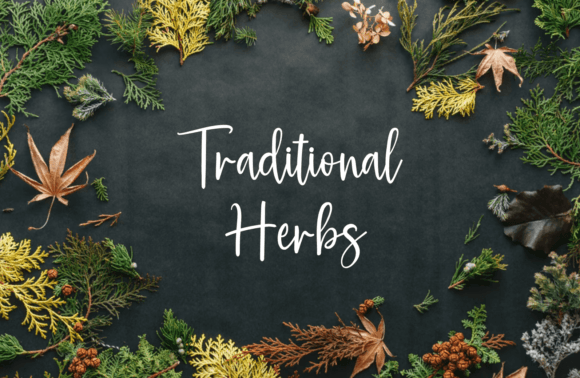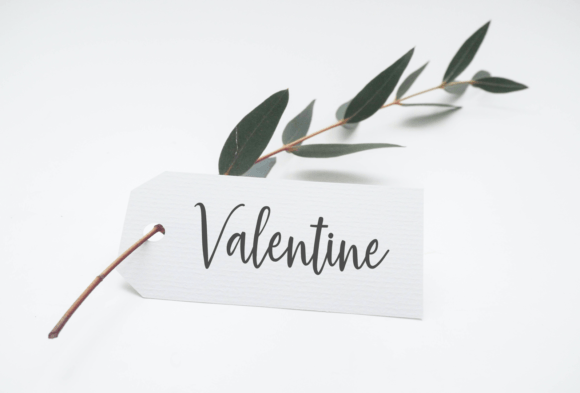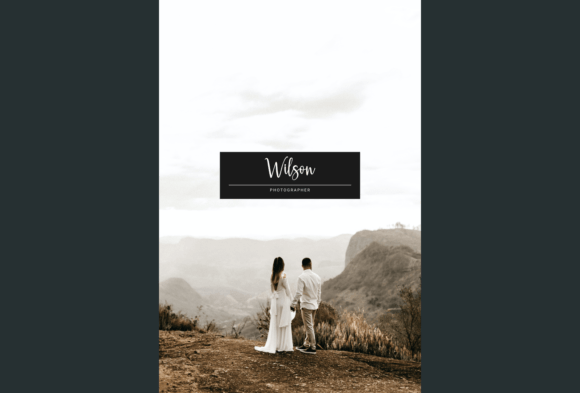
Handletters Font
About Handletters Font
Handletters is a timeless and straightforward handwritten script font, crafted with a touch of randomness and freestyle elegance. Its classic charm makes it a versatile choice, fitting seamlessly into various design contexts such as logotypes, headlines, corporate identity, brand identity, apparel industry, posters, music covers, movie titles, games, magazines, books, comics, cartoons, YouTube thumbnails, Instagram posts, websites, and any other creative design projects you have in mind.
What sets Handletters apart is its ability to convey a sense of simplicity while maintaining a stylish and classic aesthetic. The font’s freestyle nature adds a touch of authenticity, making it suitable for a broad spectrum of visual communication purposes. Whether you’re aiming for a vintage-inspired logo or a clean headline font, Handletters offers the flexibility to adapt to your creative vision.
The PUA encoding of Handletters is a valuable feature, granting easy access to a rich set of glyphs and ligatures. This ensures that designers can effortlessly tap into the font’s full range of possibilities, allowing for creative exploration and customization. Regardless of your design project, Handletters empowers you to infuse your creations with a distinct handwritten character.
In summary, Handletters is more than just a font; it’s a design tool that adds a touch of classic elegance to your creative endeavors. With its versatility and PUA encoding, Handletters becomes an accessible and enjoyable resource for bringing your design ideas to life, making your projects visually appealing and engaging.